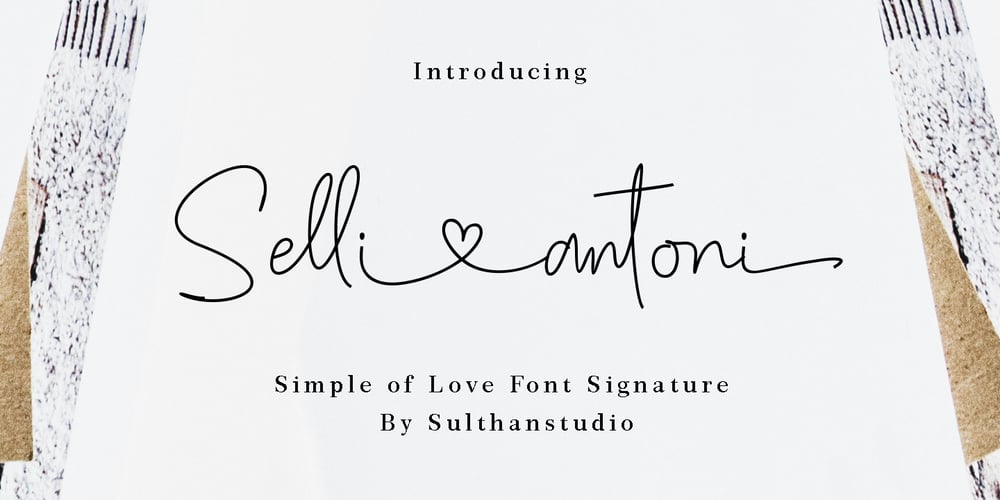
Selli antoni Font Family was designed by Nasrullah and published by Sulthan Studio. Selli antoni contains 1 styles and family package options. The signature font that I made with this pen stroke, then I trimmed it again so that it produces perfect characters and also has a few script font strokes in it.has 71 ligatures and also front and back swashes for lowercase letters and supporting heart swashes, and is also complete with uppercase, lowercase letters, punctuation numbers and also language support of course can be used for various projects such as stationery invitations, social media, logos, weddings, branding, graphic design to support the project you want to work on. You can also use additional initial and final swashes to beautify the logo you create.